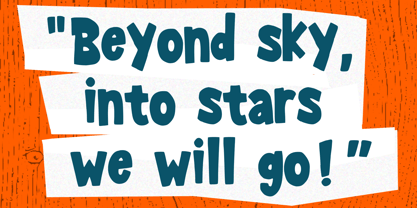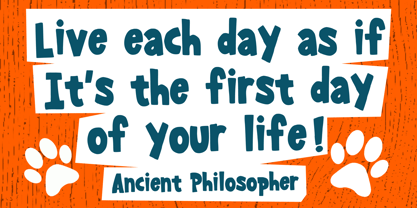
Barking Doggy
by Mvmet
The Barking Doggy Font Family was designed by Gabriel Valentinus and published by Mvmet. Barking Doggy contains 1 styles.
Barking Doggy is a cool and fun handwritten display font, you can use it on your daily activities, your fun projects, birthdays, school, and others. Use this font for many design ideas such as mugs, t-shirt designs, posters, stickers, greeting cards, and many more. This font will add a cool touch to your designs!
Designers: Gabriel Valentinus
Publisher: Mvmet
Foundry: Mvmet
Design Owner: Mvmet